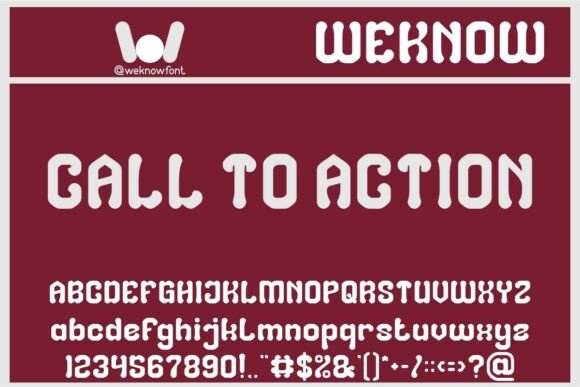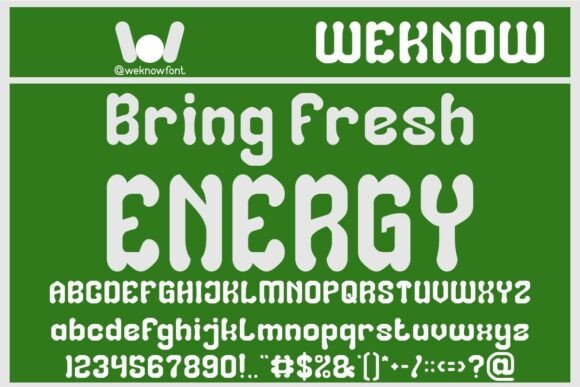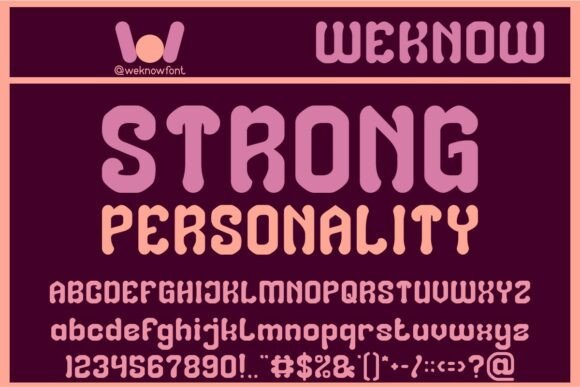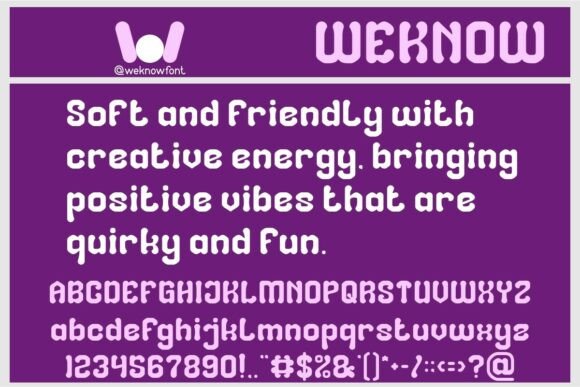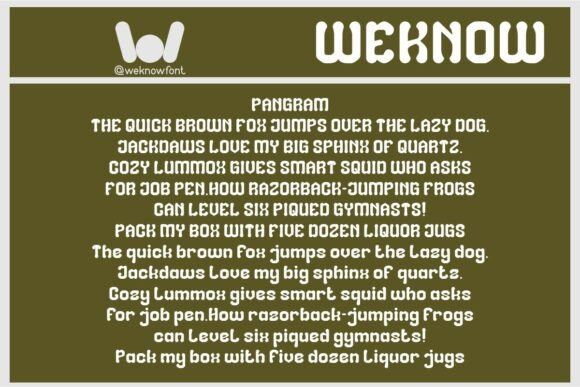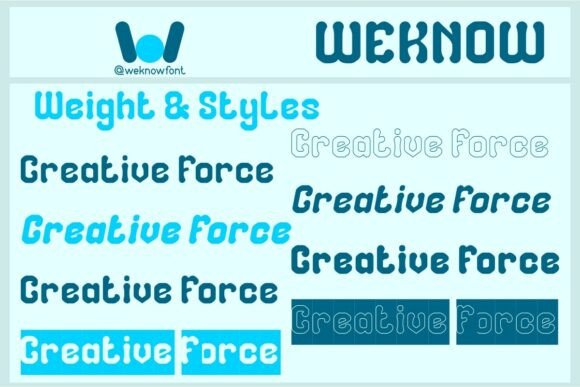
Unlock Your Design Potential with Creative Force Font
Have you ever been in the middle of a design project, pouring your heart and soul into it, only to hit a creative roadblock because you just can’t find the right font? I certainly have. It was during one of those moments, working on a vibrant comic book project, that I stumbled upon Creative Force font. It was like a breath of fresh air – a game-changer that infused my work with a playful, modern vibe that perfectly captured the essence of my project.
What is Creative Force Font?
Creative Force is an innovative font that blends geometric influences with a playful, modern retro style. Its rounded sans serif display brings a quirky touch that can breathe life into any design project. Whether you’re crafting captivating headlines, designing distinctive logos, or establishing an exciting brand identity, Creative Force shows its versatility and charm.
Honest Review: The Good and the Great
Here’s what I love about Creative Force font:
• Versatility: It’s perfect for a wide range of projects, from apparel and video games to music, films, comics, books, and magazines.
• Ease of Use: The font is incredibly user-friendly, making it easy to integrate into your designs.
• 💥 Unique Expressive Tone: It adds a unique, expressive tone to your work, setting it apart from more generic fonts.
• 📈 Scalability: The font remains clear and impactful, whether you’re working on a small logo or a large billboard.
And here are a few quirks to consider:
• 🤔 Learning Curve for Advanced Features: While the basics are easy to grasp, it might take some time to fully explore and utilize all the advanced features and glyphs.
• ⚠️ Overuse: Given its charm, there’s a risk of overusing Creative Force in a single project, which might dilute its impact.
The Story Behind Creative Force
Creative Force was inspired by the need for a font that could seamlessly blend into various design projects, offering both versatility and personality. The designer envisioned a font that could bring a playful yet modern touch to the world of design, making it easier for creatives to produce work that stands out. Drawing from geometric influences and a rounded sans serif style, Creative Force was crafted to be more than just a font – it’s a design companion that helps bring ideas to life.
What makes Creative Force font unique? Its harmonious blend of geometric influences and a playful, modern retro style, presented in a rounded sans serif display.
Creative Force font is more than just a typeface – it’s a design tool that can elevate your projects, adding a unique and expressive tone that captures attention. Whether you’re a seasoned designer or a creative hobbyist, Creative Force offers the versatility and charm needed to bring your ideas to life. Discover the magic it can bring to your design world and let your projects thrive!